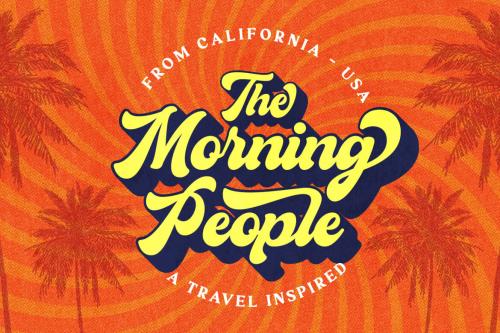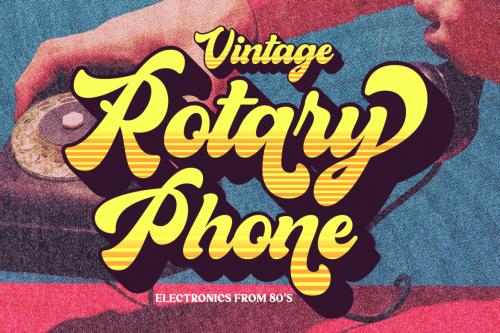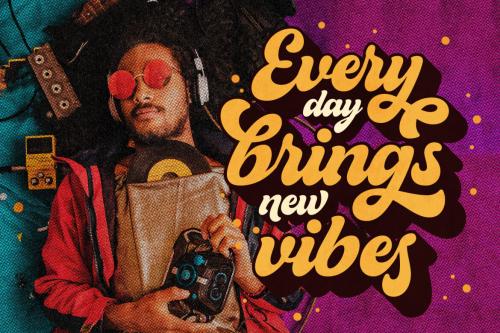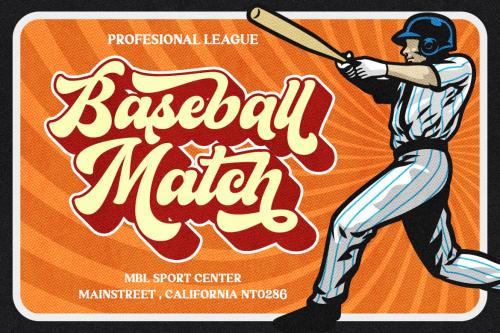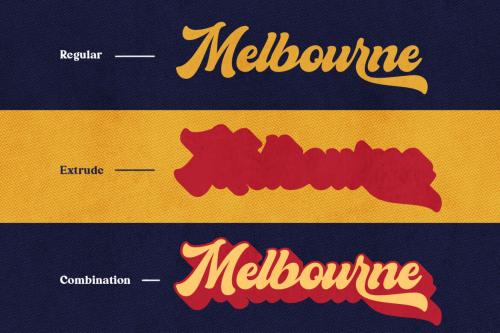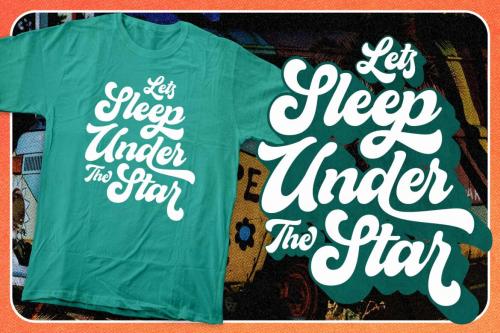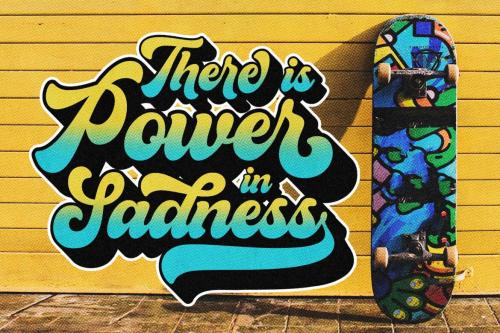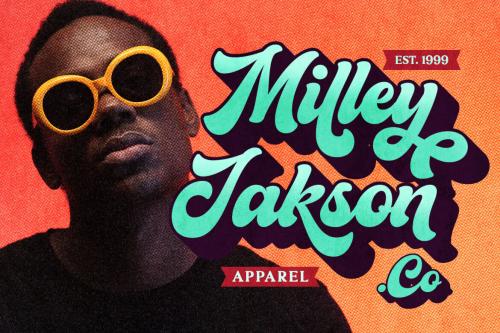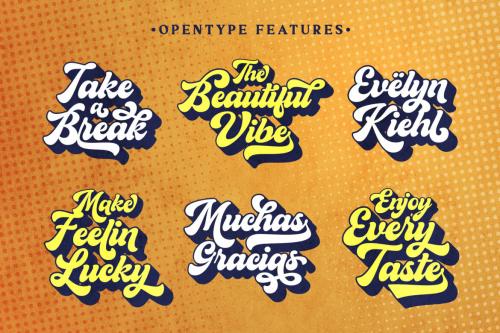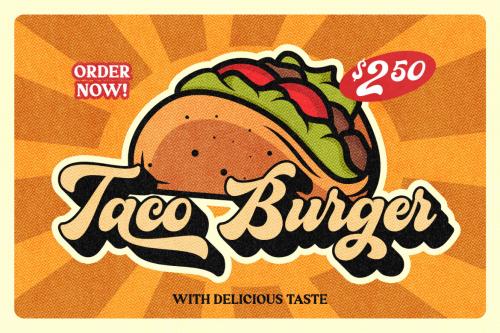
Deeezy - The Buntank – Retro Script
Meet "The Buntank" a delightful retro script font. Carefully crafted with a bold and rounded shape. Truly inspired by retro typography that you can find on posters, logo, or signage.
This font comes with the extruded style which you can make a 3D typography easily. There are over than 500 glyphs including decorative swashes that you can apply to make your design more impressive.
The Buntank also comes with other OpenType features and perfect choice to use on merchandise, logo, flyer, decal, signage, storefront, motion graphic, and more!